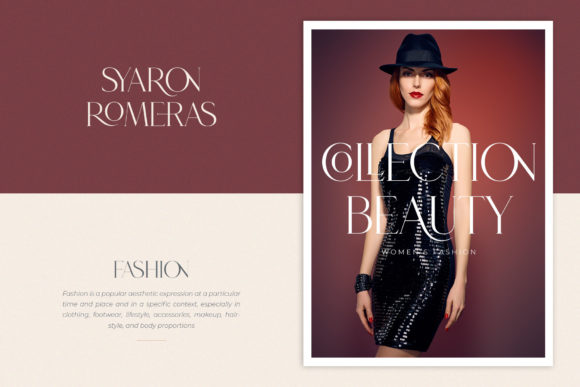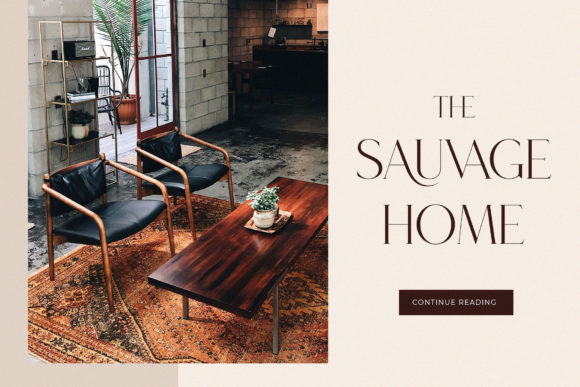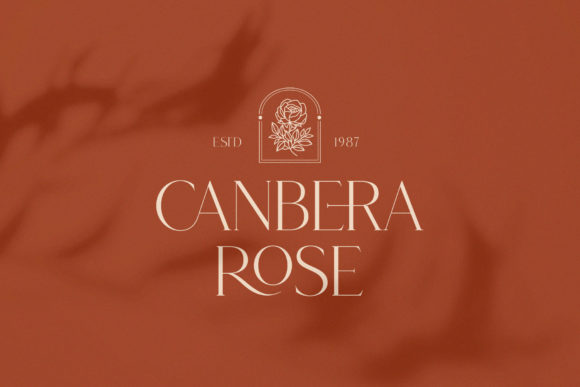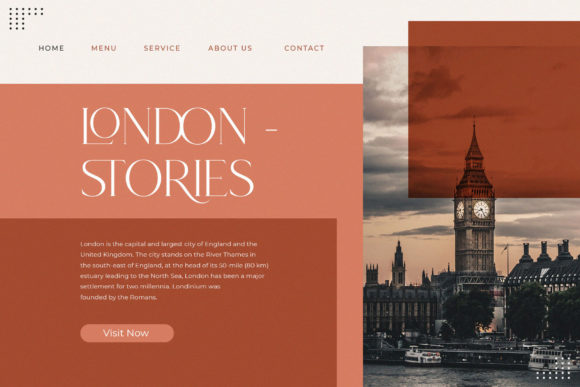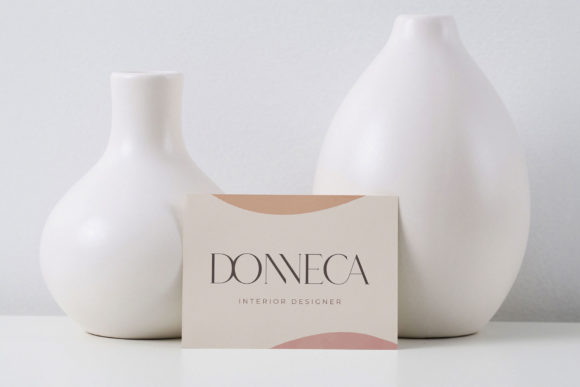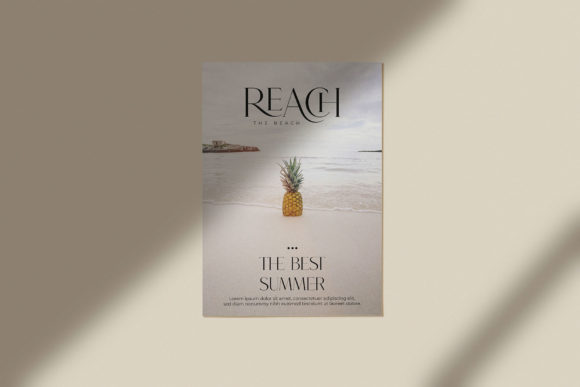
Introduction to Roseritta Font
Do you remember that moment when you stumbled upon the perfect font for your creative project? For many designers, it’s a feeling of pure joy and excitement. It’s like finding the missing piece of a puzzle, and everything falls into place. I had one of those moments when I discovered the stunning Roseritta Font. Its elegant and distinct serif style caught my eye, and I knew I had to share it with fellow designers.
Key Features of Roseritta Font
- High-quality design resource ideal for creative projects, including logos, branding, and graphics.
- Roseritta Font is designed to be versatile, with a range of styles and weights to suit different design needs.
- Unique characteristics include its elegant and sophisticated design, making it perfect for use in creative projects requiring a touch of luxury.
Honest Review: Roseritta Font
As a designer, I’m always on the lookout for high-quality design resources to elevate my creative projects. Recently, I had the chance to try out the Roseritta Font, and I must say, it’s been a game-changer.
- The font’s elegant and sophisticated design makes it perfect for any creative project that requires a touch of class.
- The font may not be suitable for projects that require bold or dramatic text, as it’s more suited for elegant and refined designs.
- The font family is relatively small, so you may not have as many style options as you would with other fonts.
Overall, I’m thoroughly impressed with the Roseritta Font. Its high-quality design and transparent background feature make it a valuable addition to any designer’s toolkit. While it may have some limitations, it’s definitely worth checking out for your next creative project.
Roseritta Font
Tips for Getting the Most Out of Roseritta Font
To get the most out of the Roseritta Font, use it in combination with a transparent background to create a modern and sleek design. Experiment with different font sizes, colors, and styles to add depth and interest to your project.
The Roseritta Font is perfect for a variety of design projects, including:
- Wedding invitations and event graphics
- Blog posts and social media graphics
Alternatives to Roseritta Font
Great Vibes is a high-quality, elegant script font perfect for creative projects. It features a transparent background and is ideal for headings, titles, and invitations. Great Vibes is a great alternative to Roseritta Font for designers looking for a more refined and sophisticated look.
Carolyna Pro is a modern script font that offers a free download option, making it a great design resource for designers on a budget. It features a clean and minimalist design, making it perfect for logos, branding, and packaging design. Carolyna Pro is a great alternative to Roseritta Font for designers looking for a more contemporary and versatile font.
Alex Brush is a beautiful, handwritten font that features a transparent background and is perfect for creative projects. It is ideal for use in titles, headings, and quotes. Alex Brush is a great alternative to Roseritta Font for designers looking for a more artistic and expressive font.